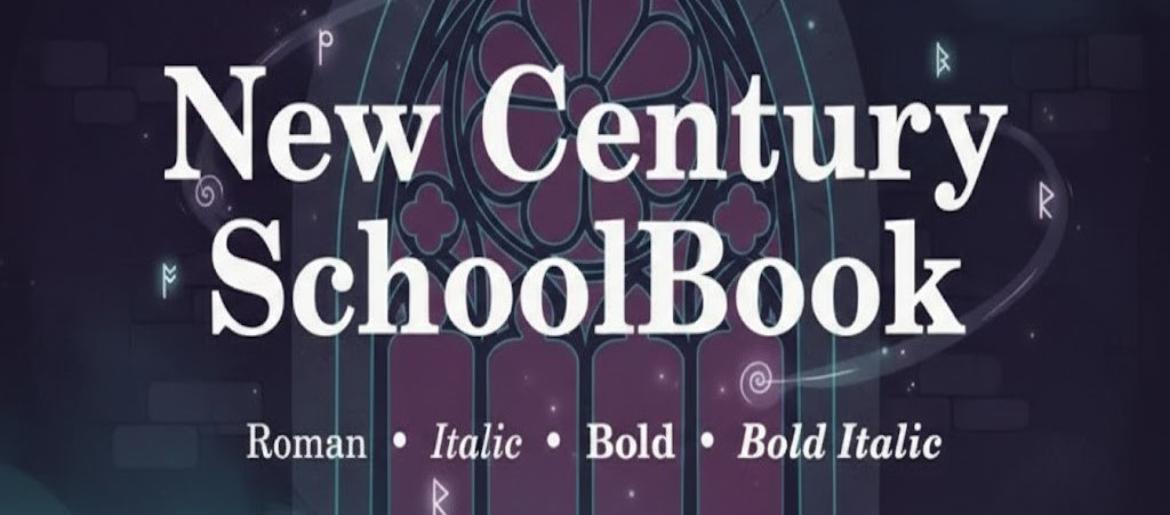
Century Schoolbook Font
Century Schoolbook Font is a classic serif typeface originally designed for educational publishing, valued for its exceptional readability and balanced letterforms. It features sturdy serifs and open spacing that support comfortable long-form reading. Commonly used in textbooks, editorial layouts, and academic materials, it remains a timeless and reliable choice, frequently included in traditional and highly readable free fonts collections.
➤ Font Name: Century Schoolbook
➤ Designer: URW Type Foundry
➤ Style: Serif